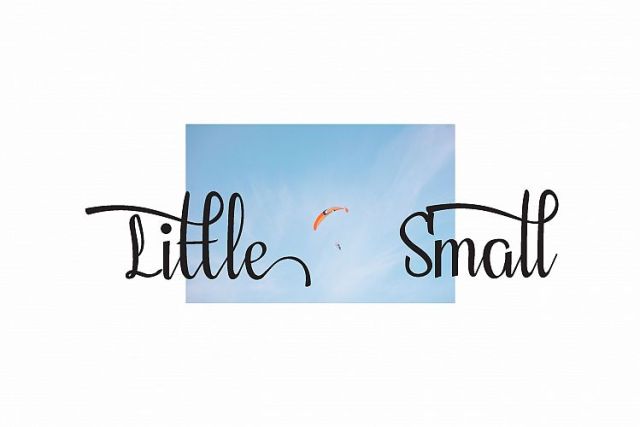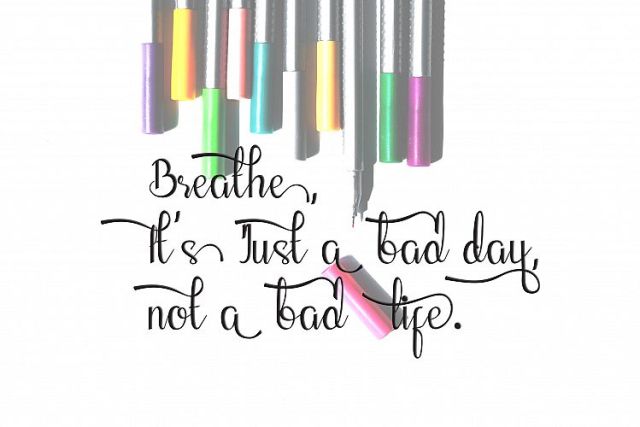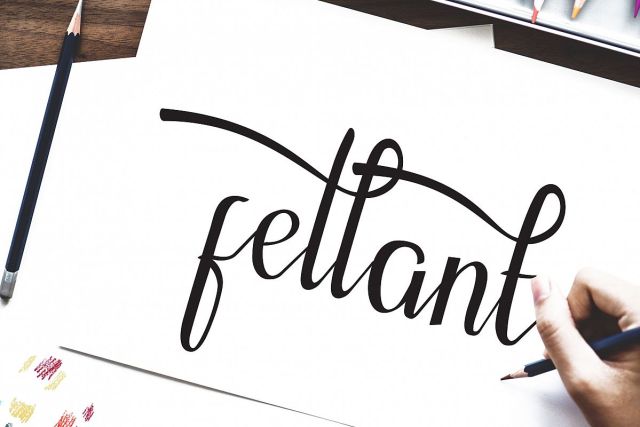
Fellant – Script Font
Fellant - Script FontScript FontFellant is a script-style font and is equipped with various stylistic set alternatives that can be selected through open type features. made through handwriting which is then digitized on the software. This font is intended for those who want a relaxed and beautiful style with an existing swash. You can see glyphs in this font in the display image.​​​​​​​